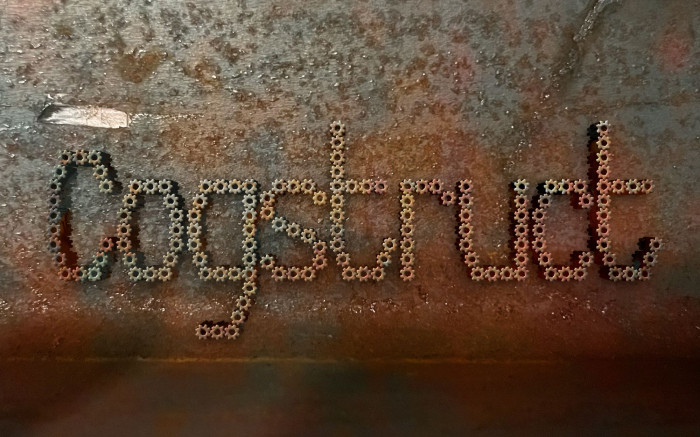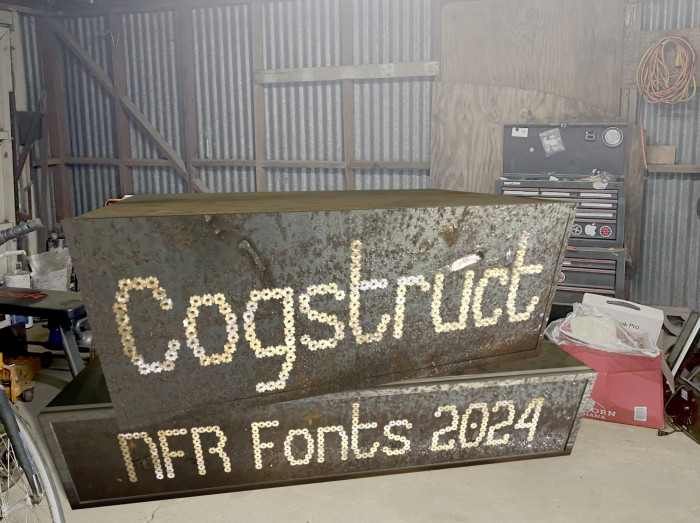
I've been wanting to make a "mechanical" font made out of gears for a while. This actually took a really long time to make, I was working on it "on and off" for many many months while dealing with college and life. I will add more characters and allow purchase of a commercial license for this font on Creative Fabrica soon. There are some letters I'm not 100% satisfied with but it's time to move on to other projects now. I will probably be adding the latin-1 supplement eventually, but I'm pretty busy so who knows when that will be. Don't worry though, more fonts will be coming at some point. For now, the font is free for personal use.
Very simple 3D render I made. Real photo of my garage in a small farming town in the Central Valley of Northern California. I also used photos I took of rusty pieces of metal for the textures on both this sample and the other sample.
Quite the deceptively intricate design, lovely samples too~